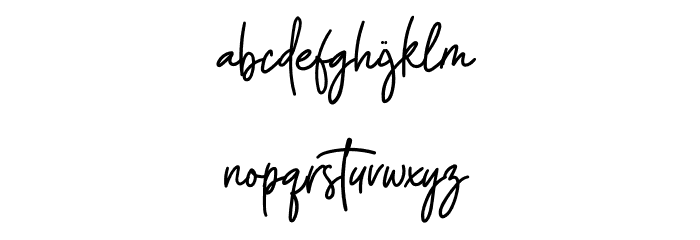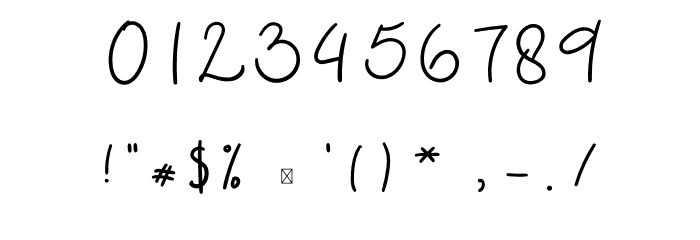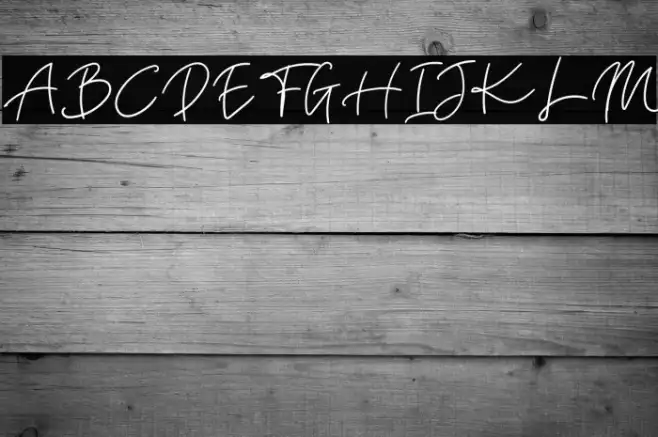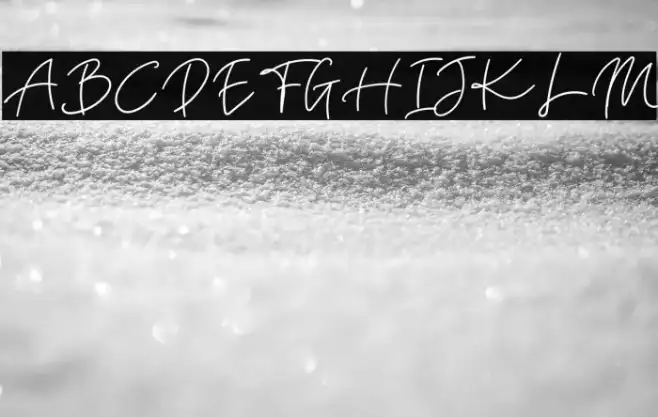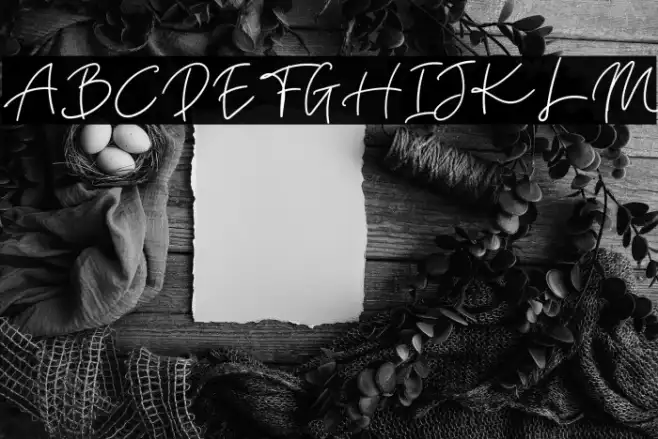
Magic Glass Font
This font features a stylish, handwritten script that exudes elegance and fluidity. The uppercase letters are gracefully elongated with smooth curves and subtle flourishes, giving them a sophisticated appearance. The lowercase letters maintain a consistent flow, with some characters featuring unique loops and swashes that add a touch of whimsy. The numerals are clean and straightforward, complementing the overall aesthetic without detracting from the script's charm. Special characters are thoughtfully designed to match the font's elegant style, making it versatile for various design needs.
A graceful, handwritten script font with elegant curves and fluid strokes.
- Font: Magic Glass
- Proposed Projects: Ideal for wedding invitations, greeting cards, branding projects, and elegant logos.
- Category: Script
- Overall Style: Elegant
- Use Case: Logos, Invitations, Greeting Cards